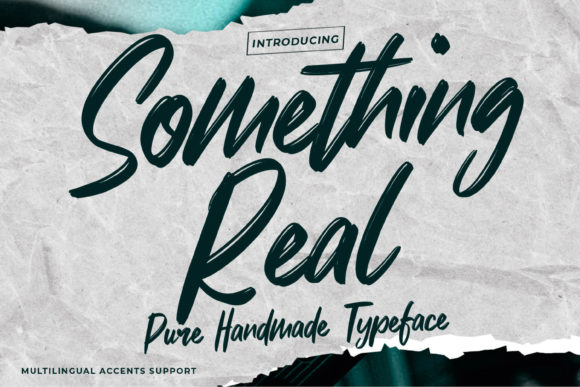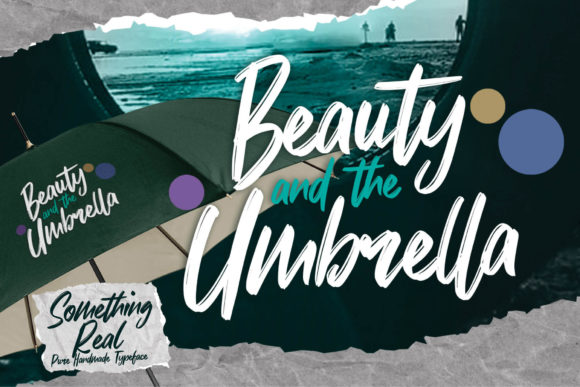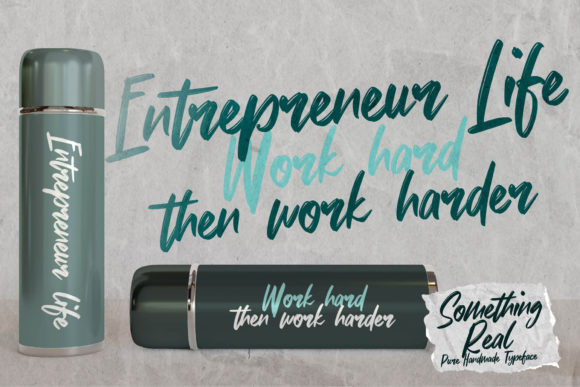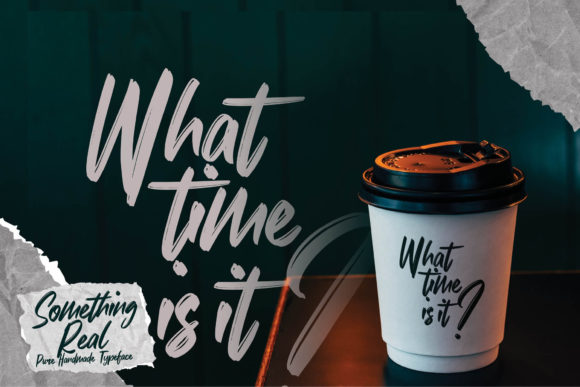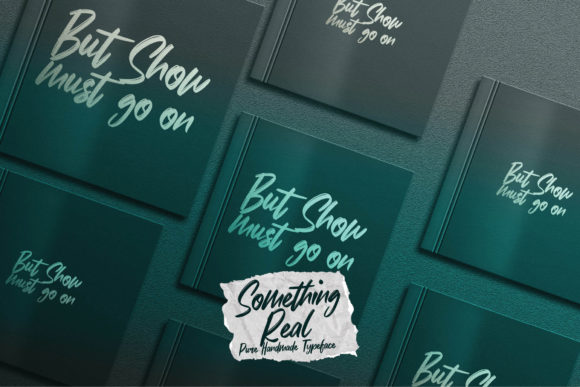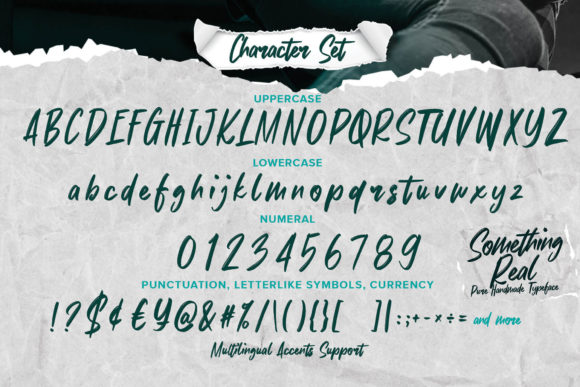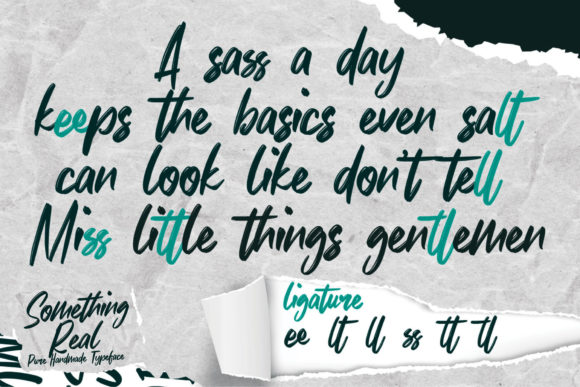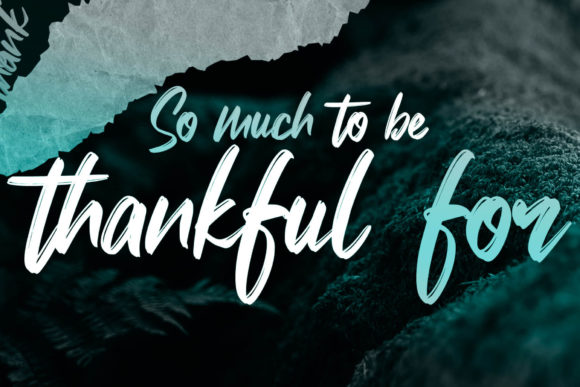
Something Real Font
About Something Real Font
Something Real is a lovely script font featuring charming, playful characters that seem to dance along the baseline. Add this font to your most creative ideas, and notice how it makes them stand out!